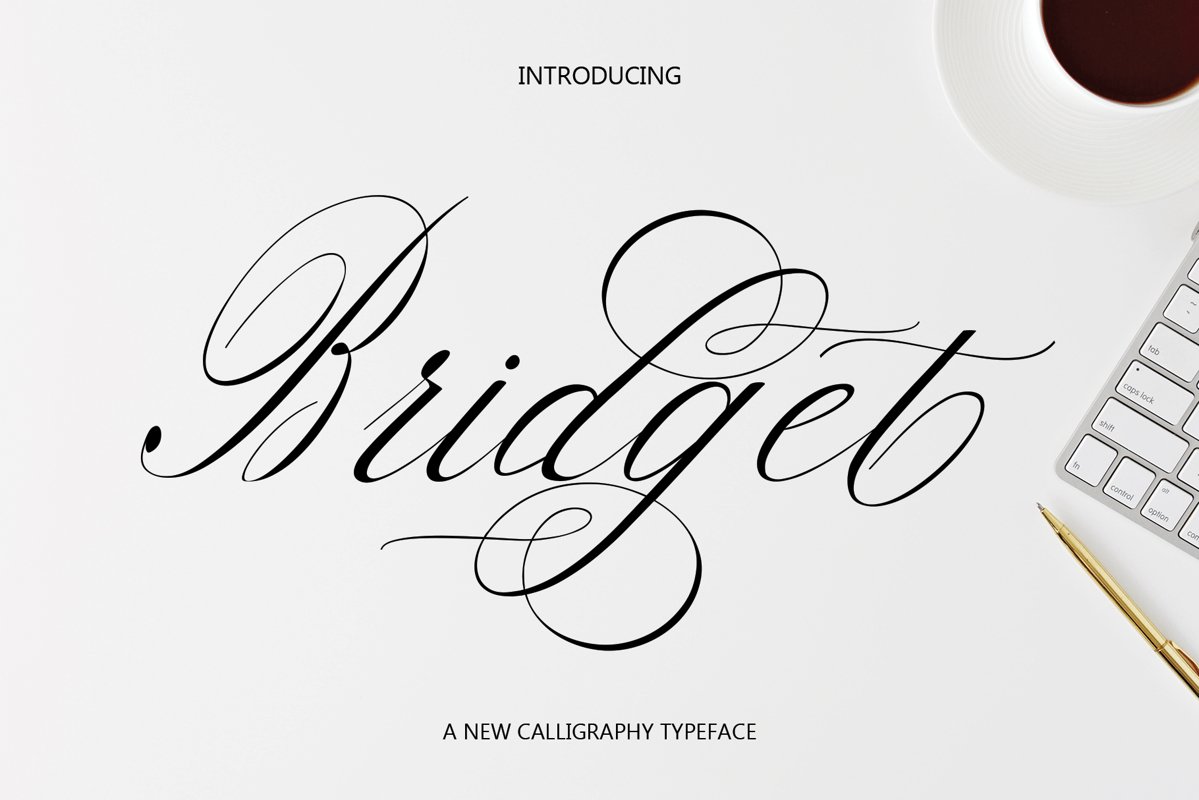
Bridget Script
Bridget
Bridget is another lovely modern calligraphy typefaces, which is combining the style of classic calligraphy with an modern style.